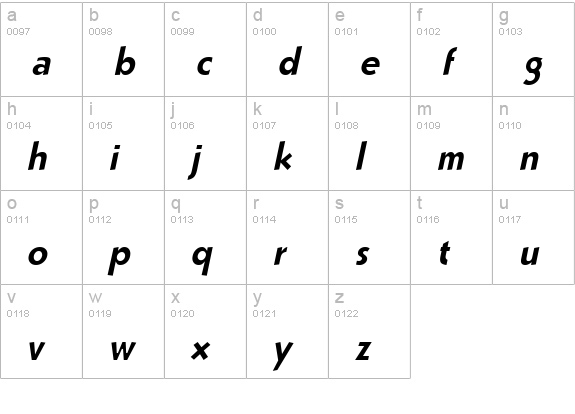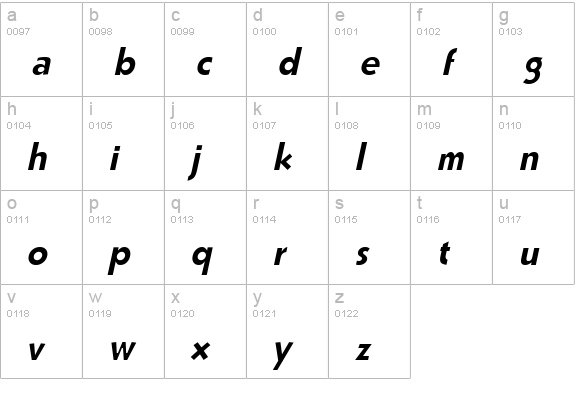
Bully Narrow Italic is a distinctive, condensed-width, italic variant in the Bully typeface family \xE2\x80\x94 well suited to design and typography projects.
Bully Narrow Italic font exudes a sleek and edgy vibe, perfect for adding a touch of boldness to your designs. Its slanted and condensed letterforms give off a sense of modernity and sophistication, making it an ideal choice for projects that require a contemporary aesthetic. The italicized style adds a dynamic flair, making your text stand out with a subtle yet impactful touch. Best of all, Bully Narrow Italic font is available for free download at FontsMarket.com. This means you can easily access this stylish typeface to elevate your designs without any cost. Whether you're working on branding materials, editorial layouts, or digital graphics, Bully Narrow Italic font offers versatility and flair to help you make a lasting impression. Upgrade your typography game today with this striking and unique font that's just a click away.